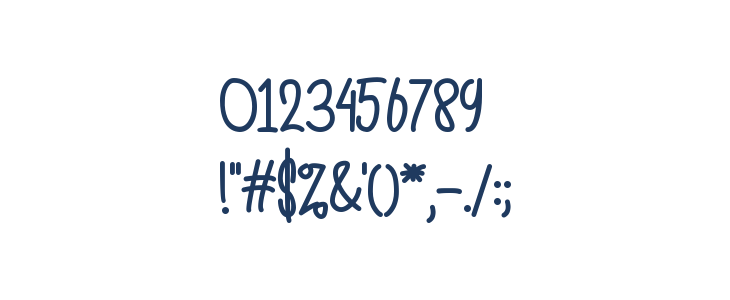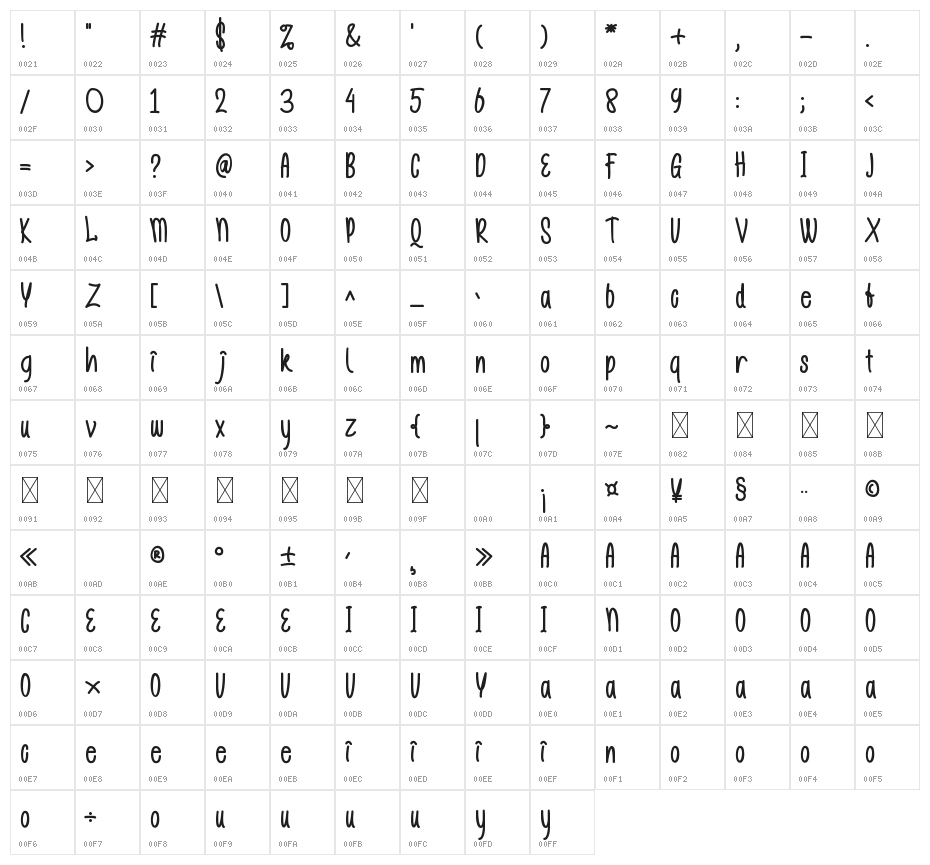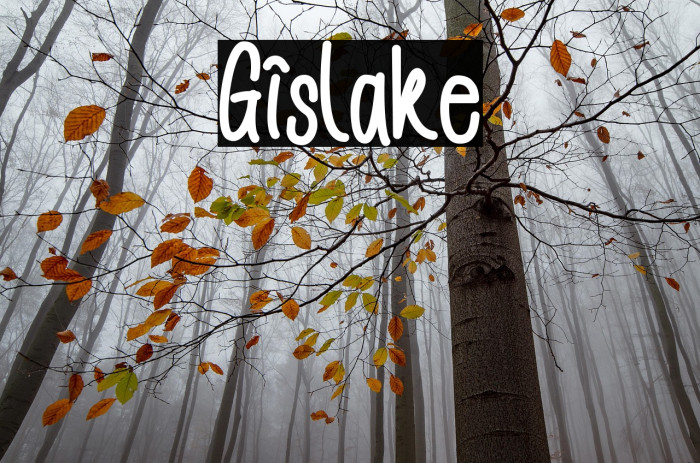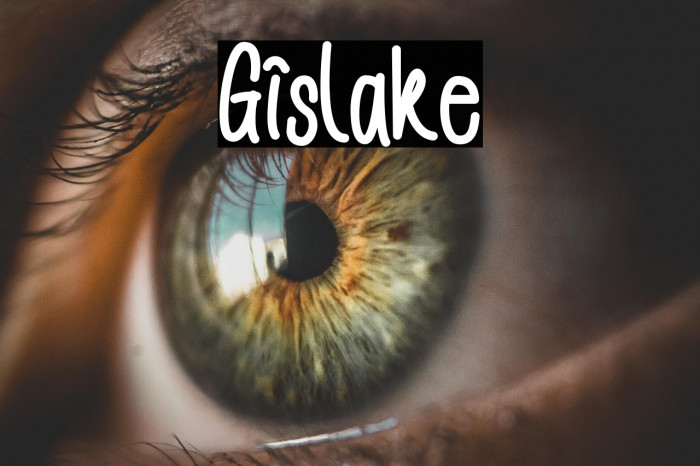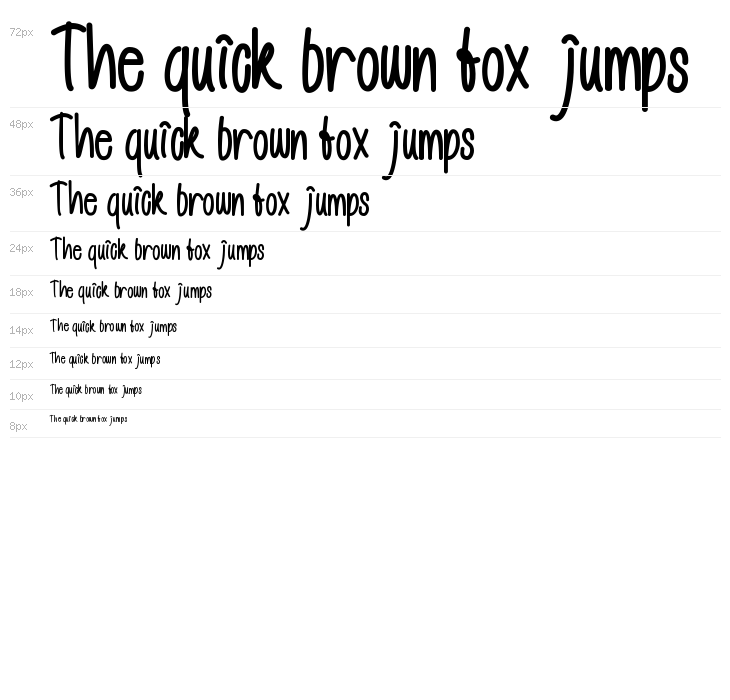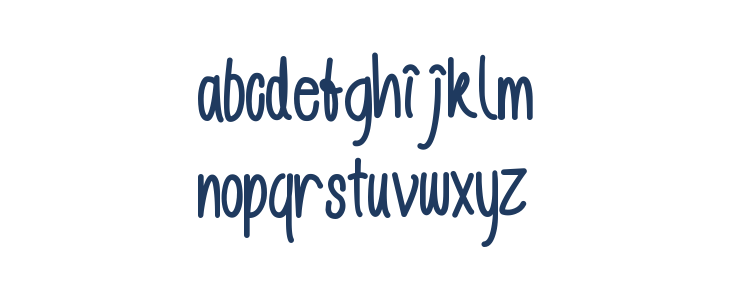
Gislake Font
Gislake Description
This font features a playful and casual handwritten style, characterized by its smooth, flowing curves and slightly irregular letterforms. The uppercase and lowercase letters maintain a consistent height, giving it a balanced appearance. The numerals and special characters are designed to complement the letters, ensuring a cohesive look throughout. Its informal and friendly aesthetic makes it suitable for projects that require a personal touch. The strokes are moderately thick, providing good legibility without sacrificing its whimsical charm.
| Overall Style | Casual |
| Use Case | Logos, Headlines, Informal Text |
| Proposed Projects | Ideal for greeting cards, children's books, casual branding, and social media graphics. |